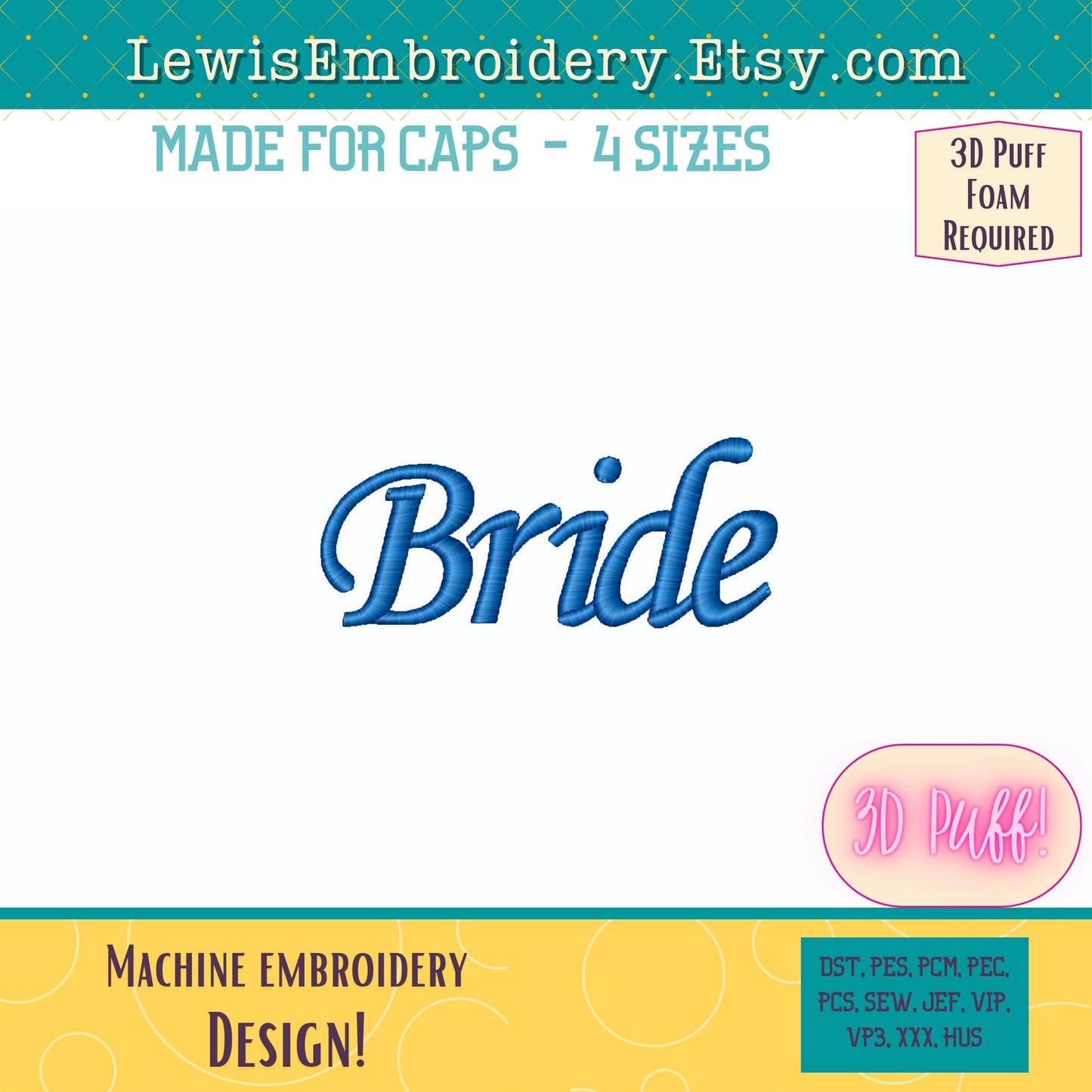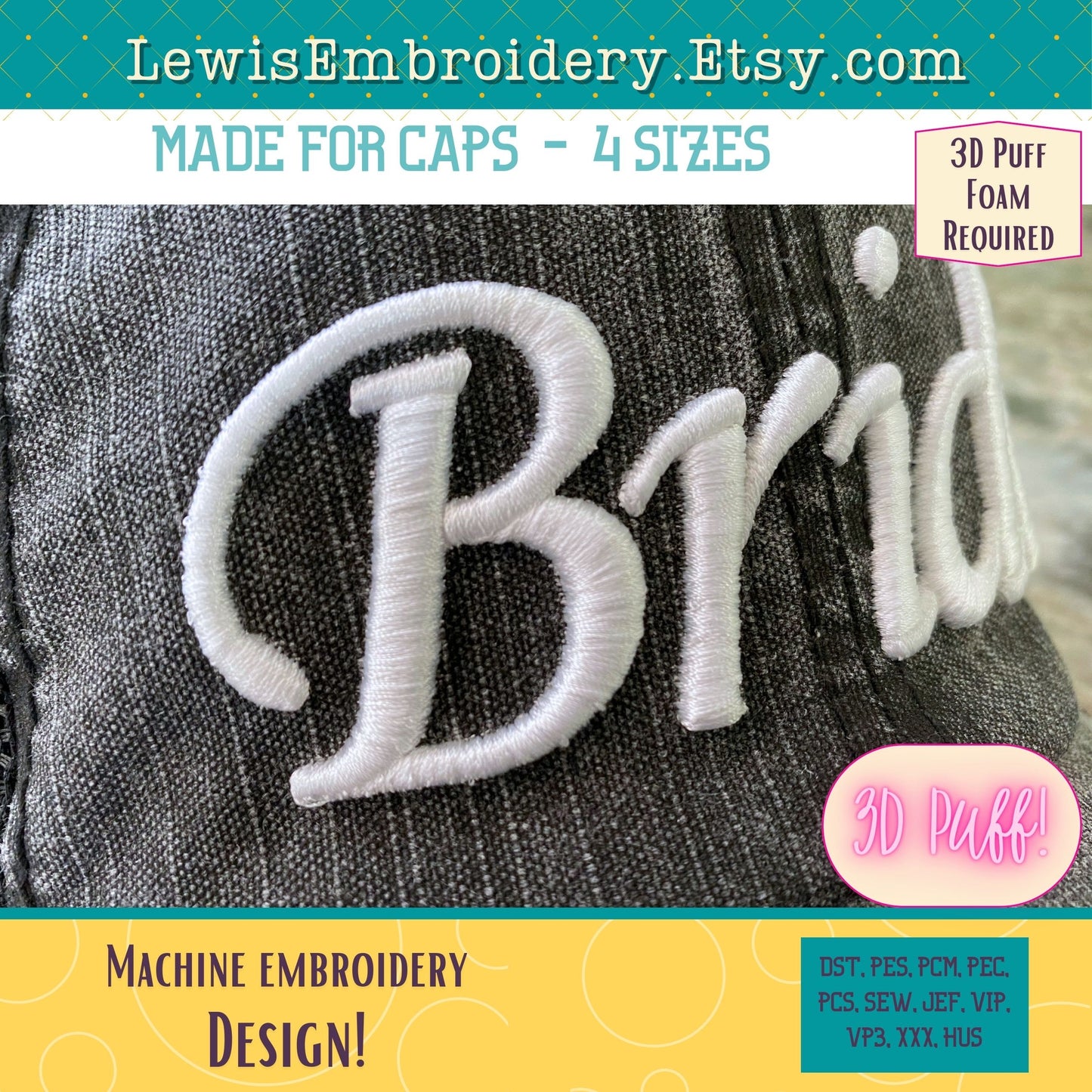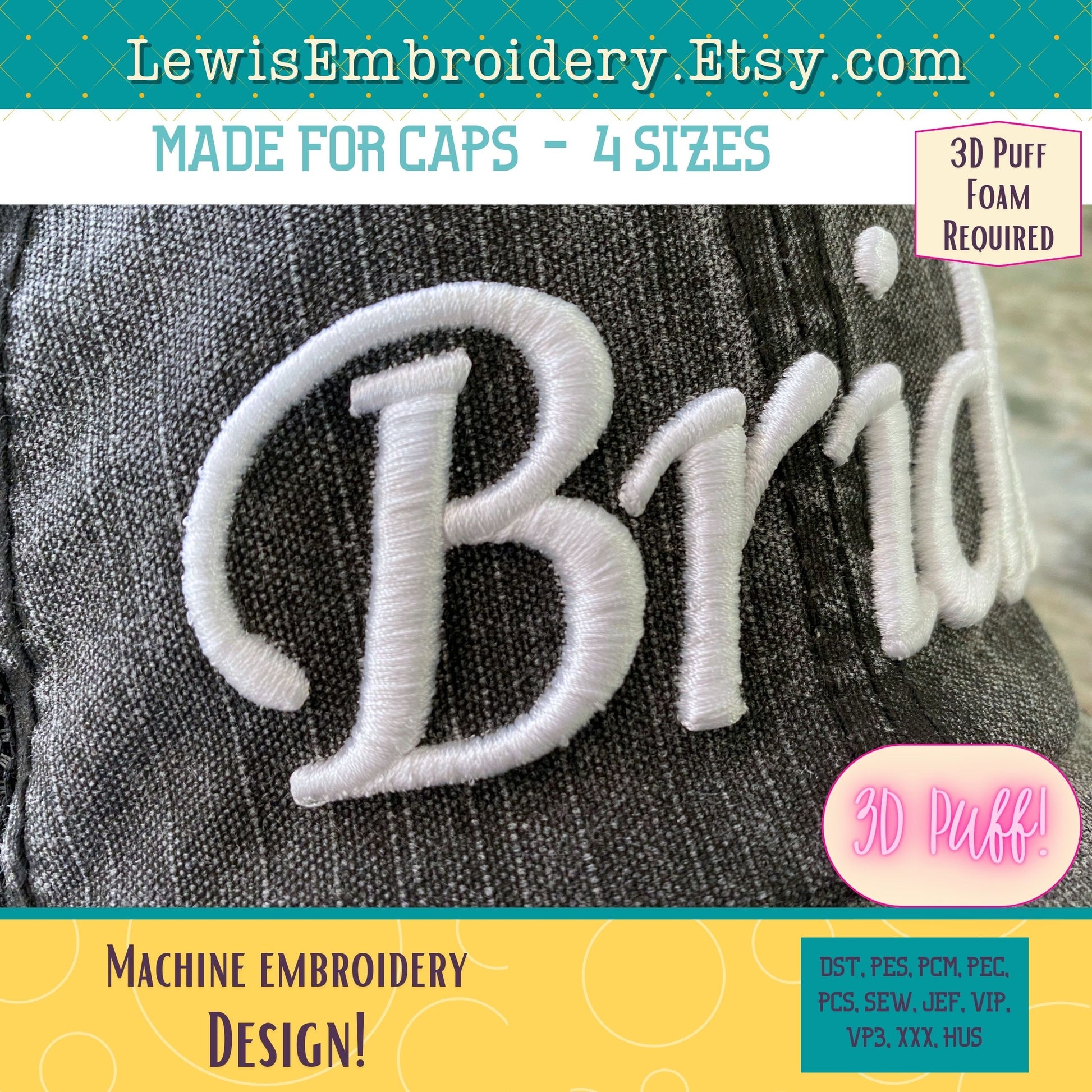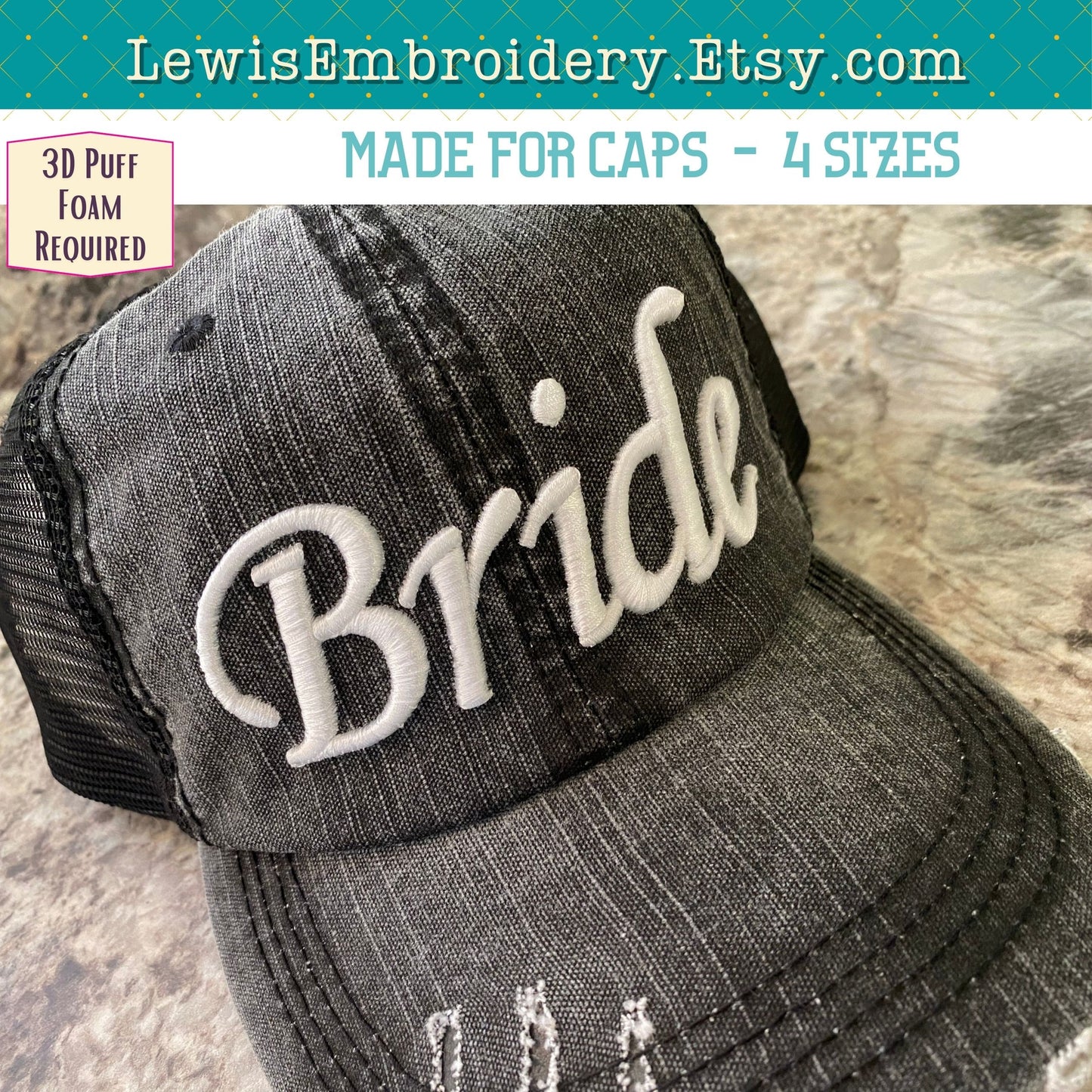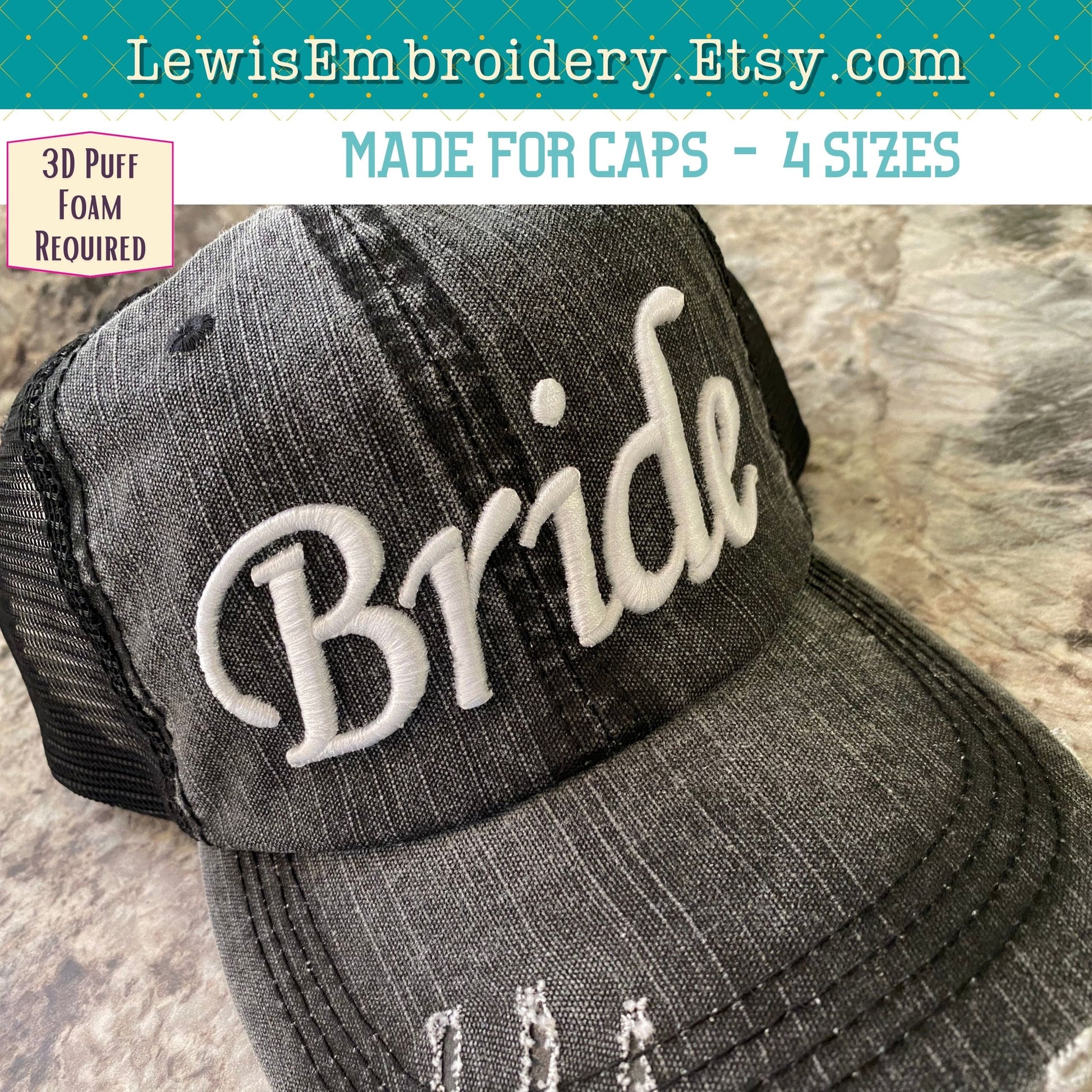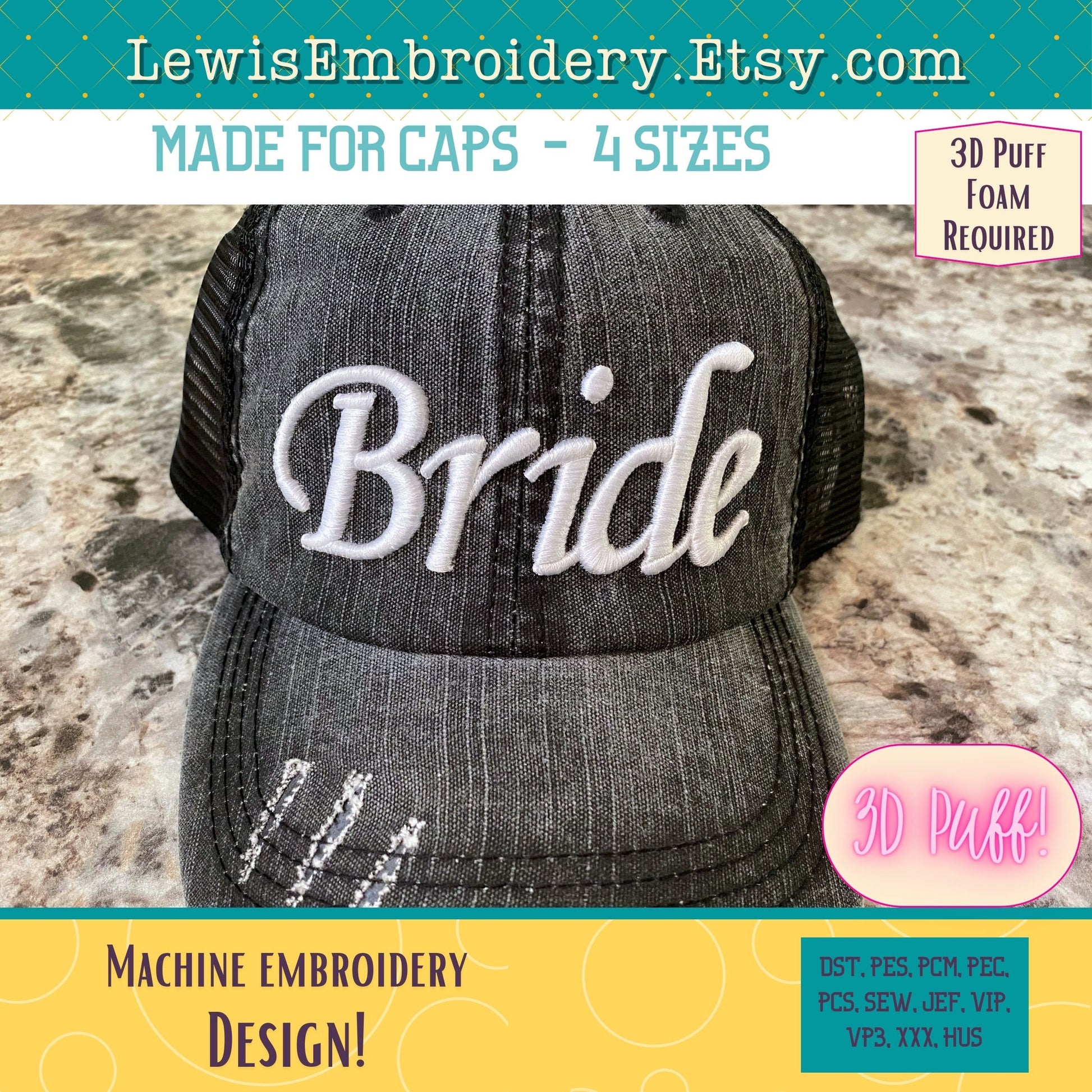
BRIDE 3D Puff, Machine Embroidery Design - NOT Full Font - (Digital Download)
BRIDE Cap 3D Puff Embroidery Design - Bride Cap - Bride Hat - Puffy Foam Embroidery Font - Cursive, Script, 3D Embroidery - Bride Embroidery
This design was specifically digitized for use on caps and hats. This simply means there was special attention paid to the density and order of stitchout (caps typically stitch from the center point, out). This doesn't mean you can't stitch this onto a flat garment! This can be used on just about anything, actually :) Message me if you have any questions!